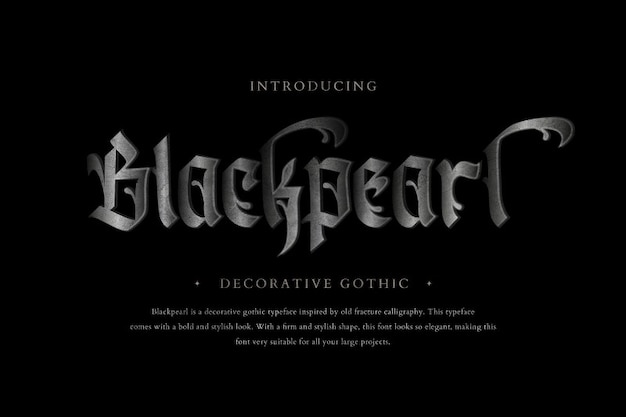
Blackpearl Font
Creatype Studio
A font that delves into the depths of gothic design. With its intricate, decorative details and an old-world charm, it's perfect for projects that require a touch of dark elegance. This font transports you to the medieval era, where manuscripts were ornate and detailed. Whether you're working on a vintage poster or adding a touch of mystery to your design, "Blackpearl" is your treasure trove of typographic artistry.